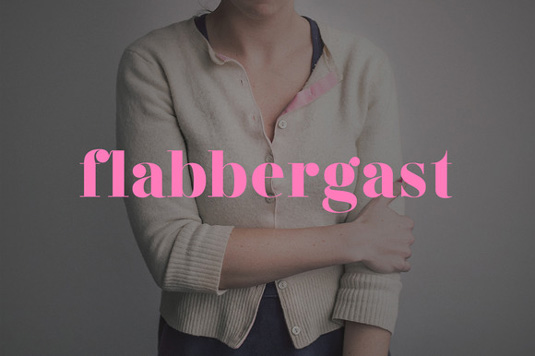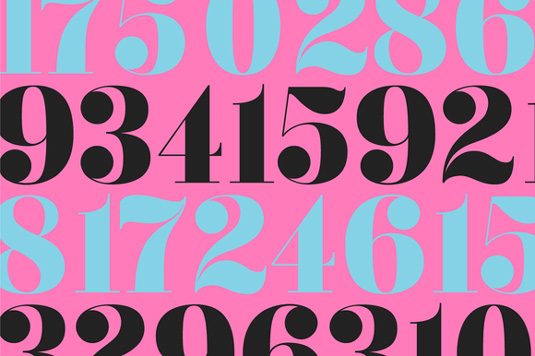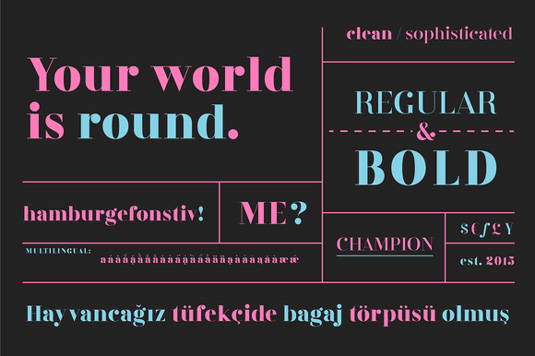
Font of the day: Flabbergast
Flabbergast by Tyler Finck
Flabbergast typeface kicks off our fonts of the day posts in style this week. Created by designer Tyler Finck, who spent the better part of 2015 working on it. "After creating all of the design for my game Assumptions using Didot, I felt inspired to create an even higher contrast font, for print and web," Finck says. And so Flabbergast was born!